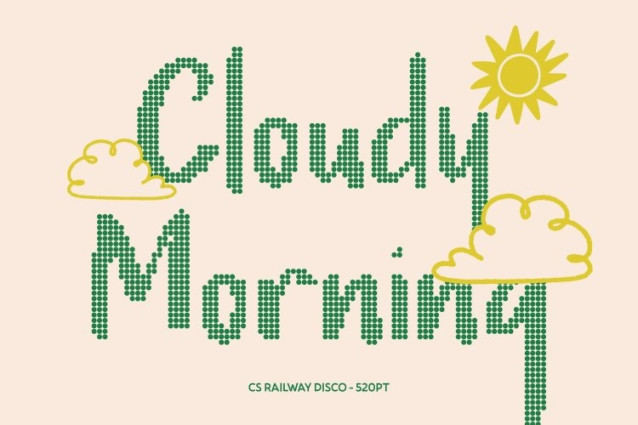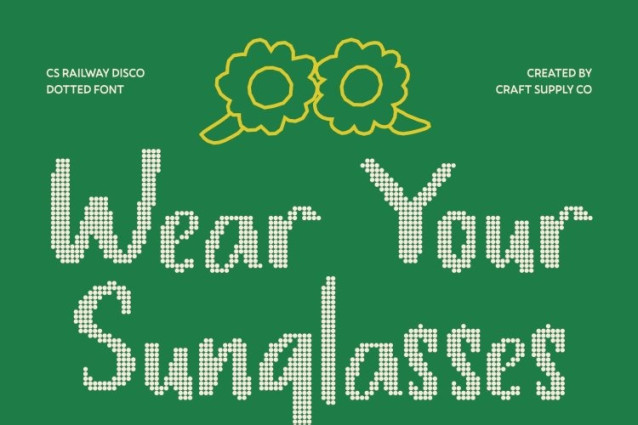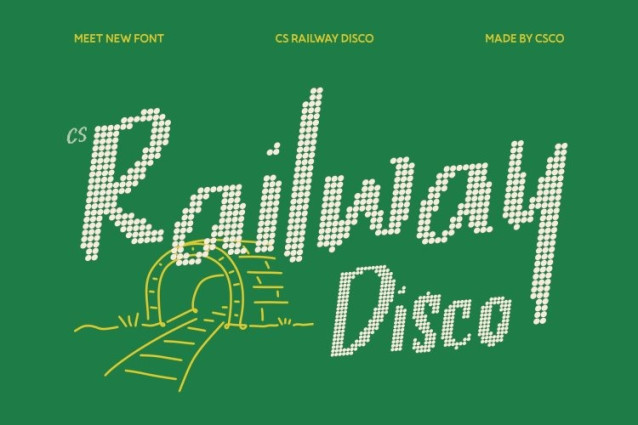
CS Railway Disco Font
CS Railway Disco Font – This is a marker-style sans serif font that captures the warmth and spontaneity of natural handwriting, enhanced with a lively disco-inspired dotted texture. Its flowing strokes mimic the organic motion of hand-drawn marker lettering, while the sparkling dotted pattern adds visual rhythm and playful brilliance. This combination creates typography that feels both authentic and vibrantly expressive.
Handwritten Texture with Luminous Character
The soft marker strokes bring a handcrafted personality to the font, giving each letter a natural, personal feel. When paired with the disco-style dotted texture, the result is a dynamic visual surface that adds depth and energy while maintaining the warmth of handwritten expression.
Balanced Structure with Creative Flair
Although expressive in style, this font retains the clarity of a clean sans serif structure. Rounded edges and balanced forms ensure readability across different layouts, while the decorative dotted effect enhances its visual personality without overpowering the design.
Perfect for Editorials, Branding, and Digital Design
This font shines in editorial layouts, creative branding, posters, packaging, and digital graphics. Its marker-inspired strokes add a human touch to headlines and titles, while the disco texture introduces a unique decorative charm that helps designs stand out.